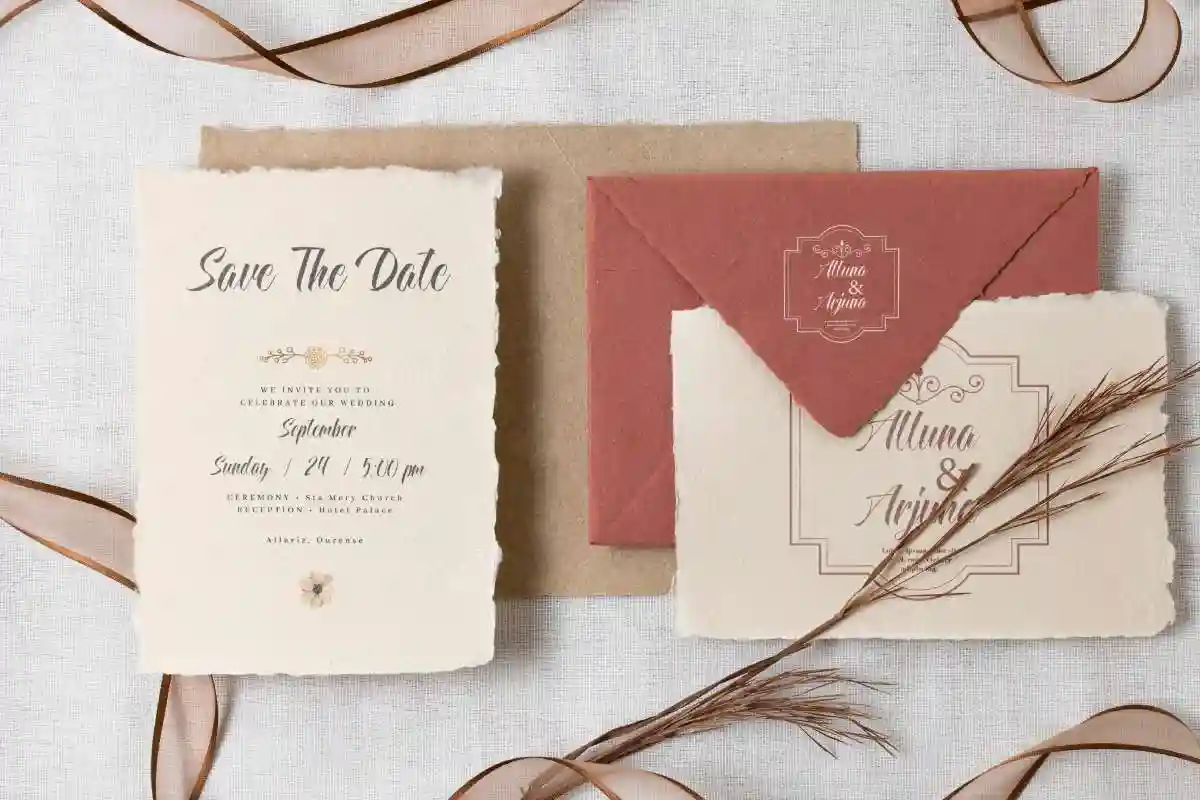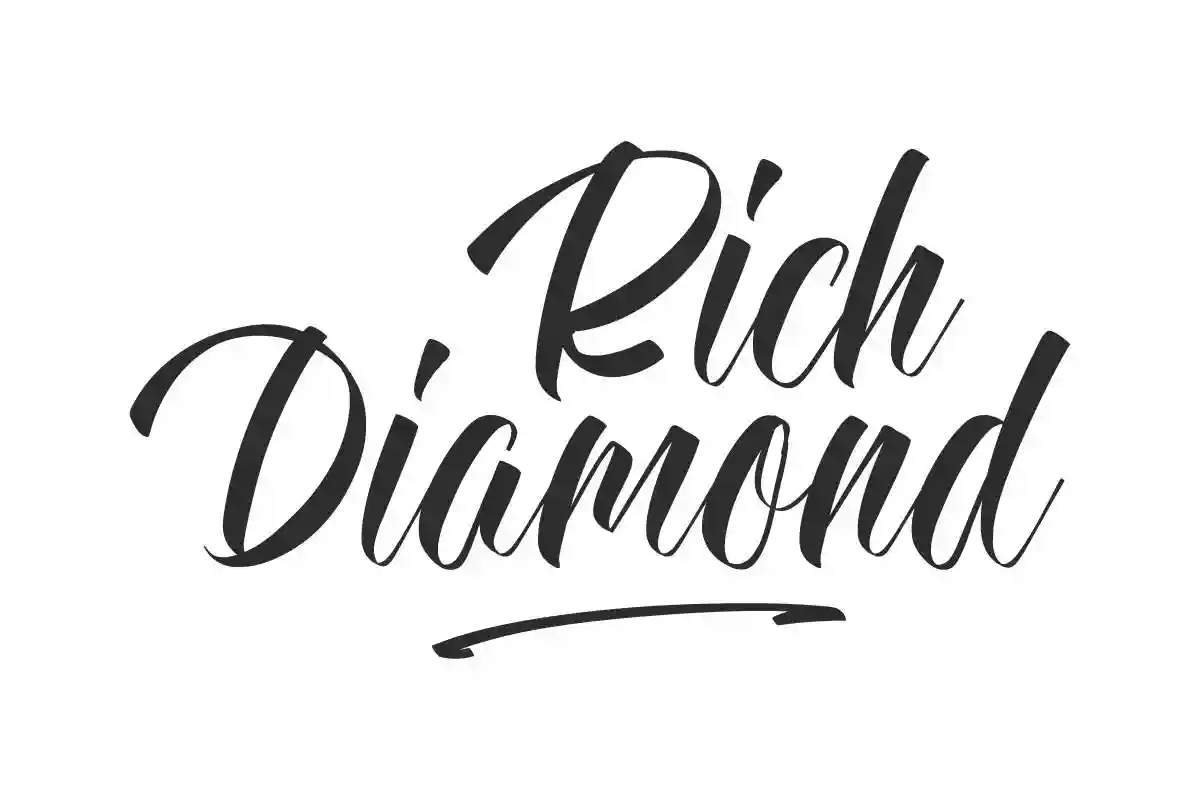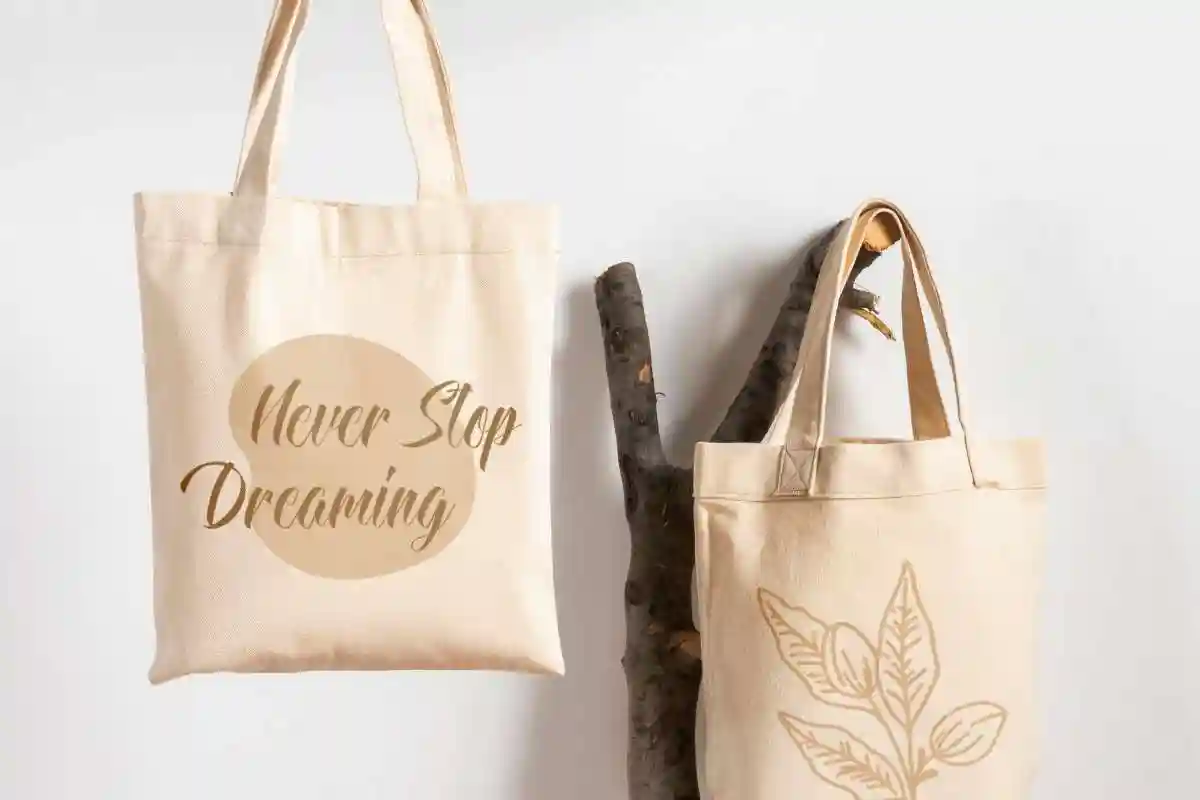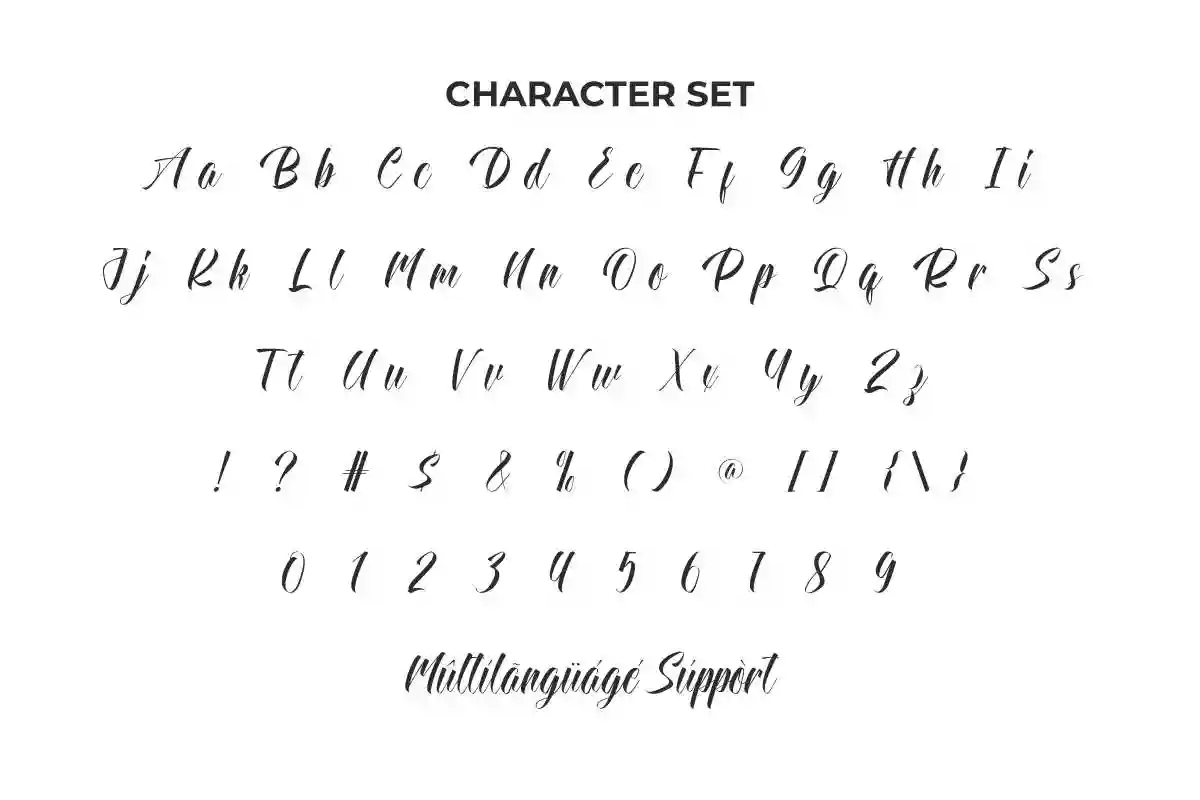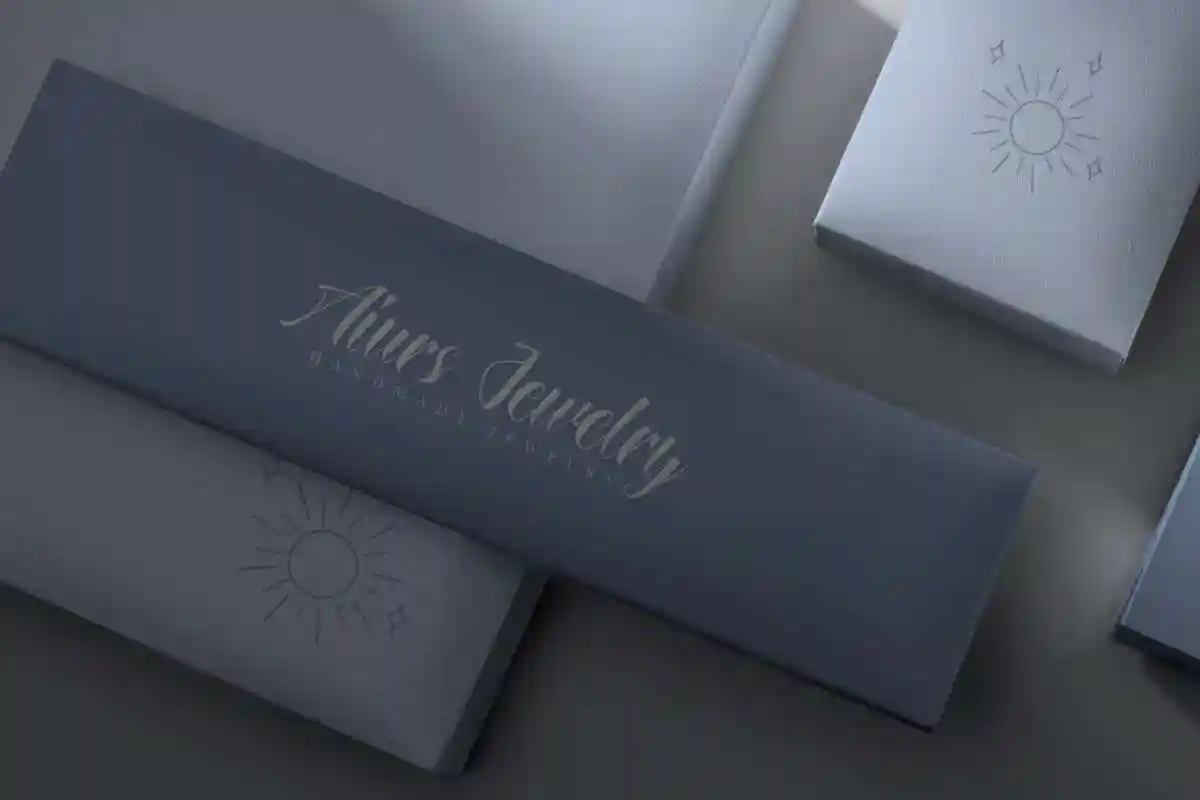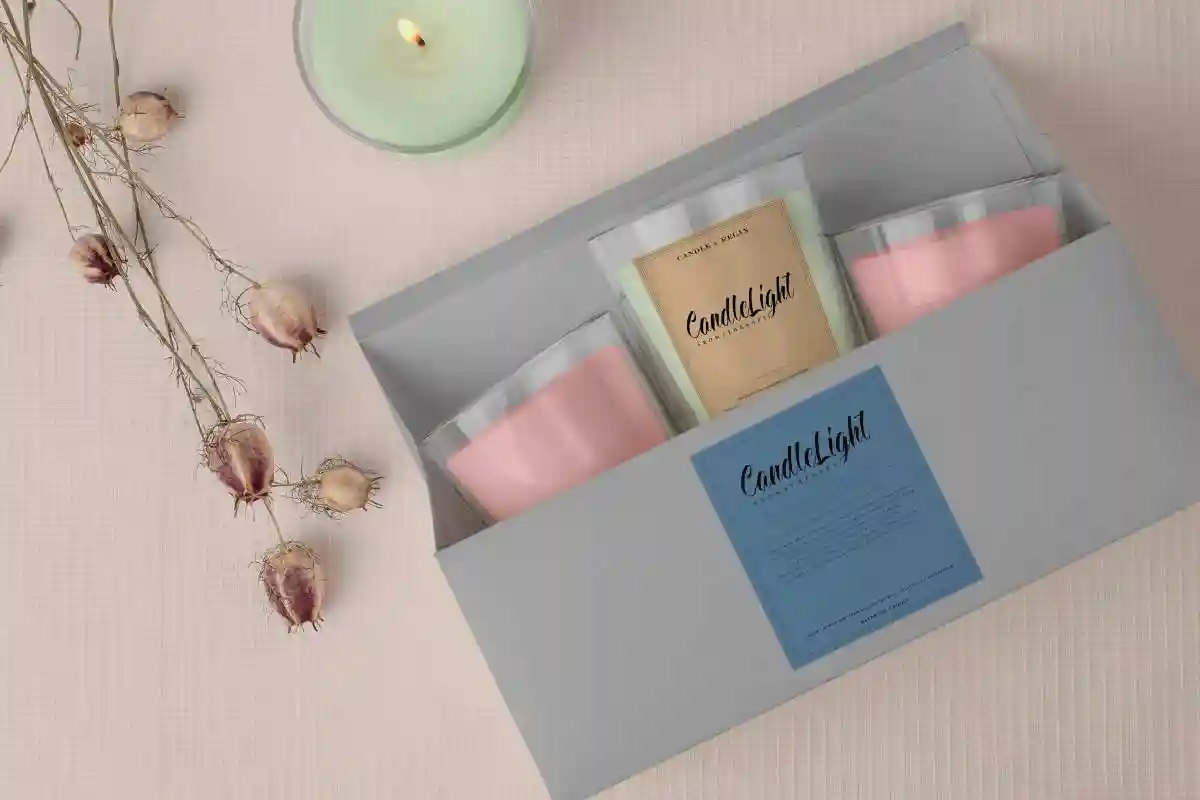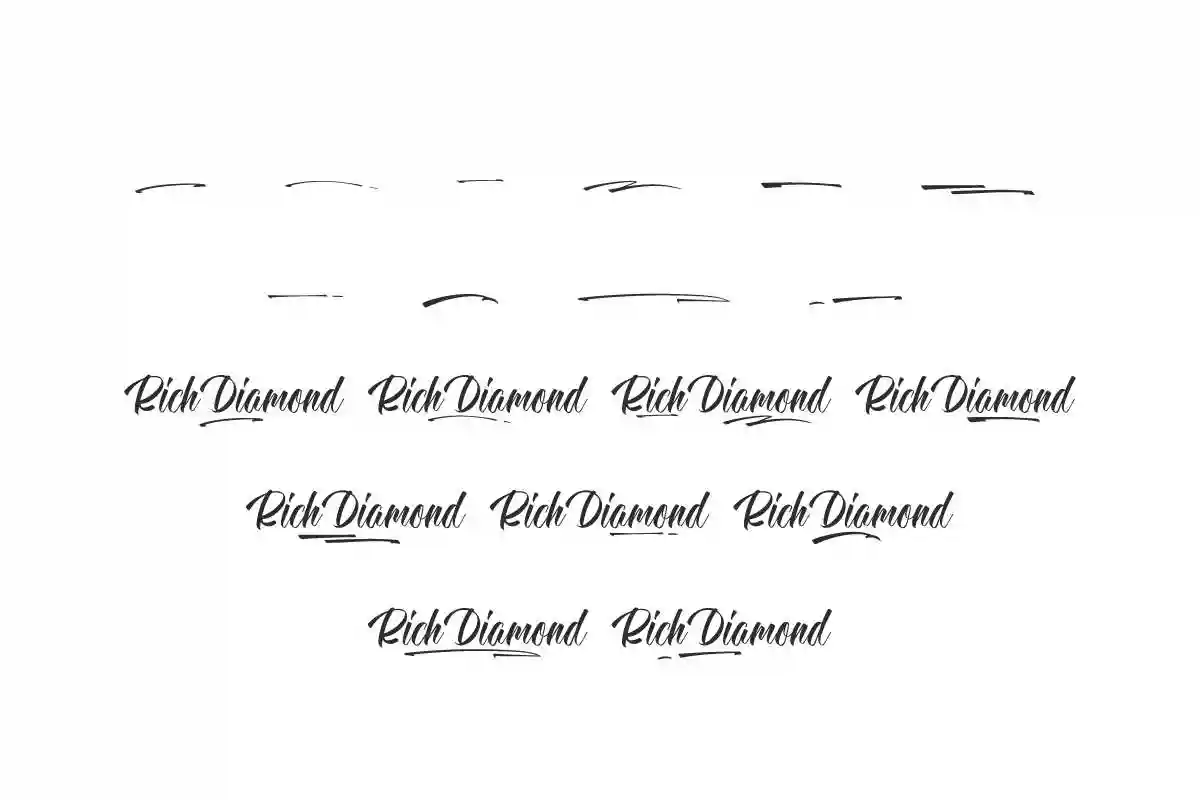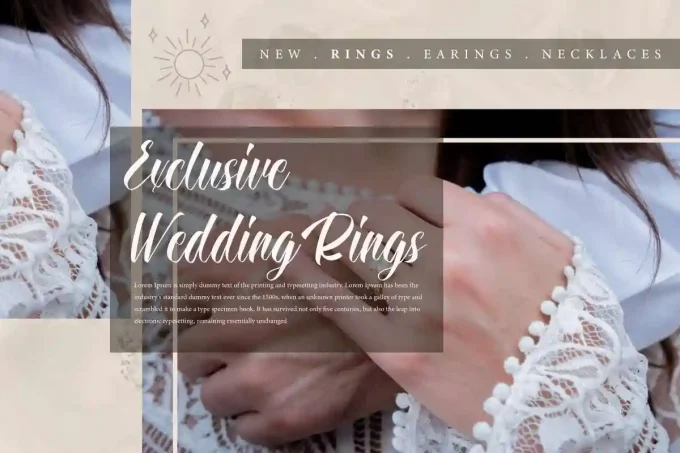
Rich Diamond Font is a elegant calligraphy font with stylish letters designed by NihStudio. Use this to add an exclusive feel to invitation design, label, spa, etc.
Rich Diamond Font is an elegant script font with calligraphy style. It has a modern look and easy to read that will add to the beauty on your designs, such as billboard, brand logo, invitation, label, packaging design, quote, stationery, sticker, title, watermark, website, and much more!
Rich Diamond Font comes with a full set of Uppercase and Lowercase Basic Characters, Number, Punctuation, Symbol. This font also features a swoosh characters to add aesthetic value to the font. Use this for your business industry such as, accessories, event organizer, fashion, handicrafts, jewelry, spa, etc.